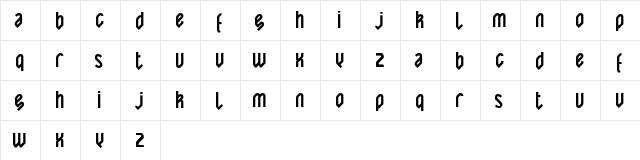
Yatis black Font Preview
Yatis black Yatis black
Yatis black Font Details
| Style | Yatis black |
| Foundry | beno?t Sj?holm |
| Designer | Beno?t sj?holm |
Design Context for Yatis black Typeface
Yatis black is a composed and adaptable typeface that performs quietly and consistently across a wide range of design contexts.